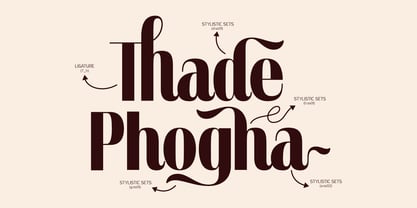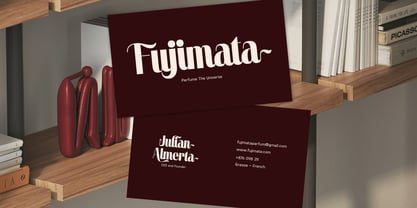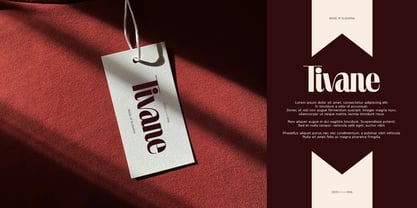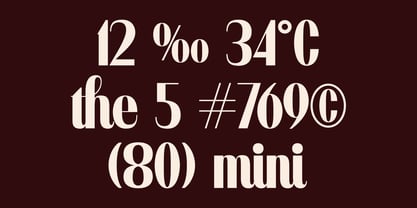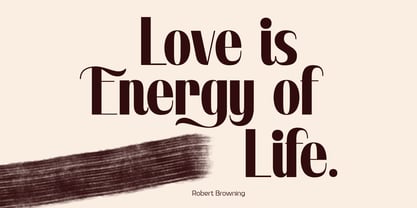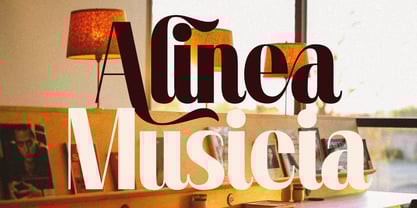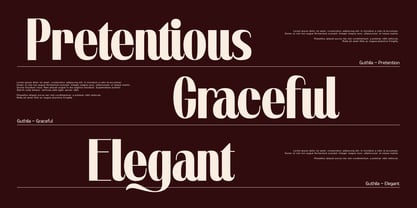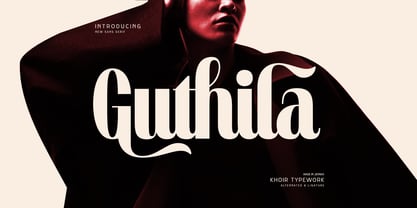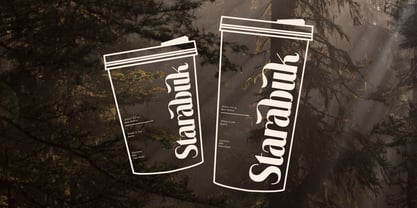
Guthila
by Khoir
The Guthila Font Family was designed by Muhammad Romzul Khoir and published by Khoir. Guthila contains 1 styles. More about this family
An elegant and classic sans serif with soft, bold curves and detailed lettering, Guthila offers a modern touch and excellent readability. It's perfect for any project requiring a high-end or retro feel, inspired by the recent resurgence of retro or classic trends. Guthila is perfect for creating elegant logos, packaging, branding, and editorials that combine a nostalgic feel with modern design. Guthila Alternates Ligauture 75+ Language So what are you waiting for? immediately purchase this font, feel free to comment, or send me my PM or email at Thank you for seeing